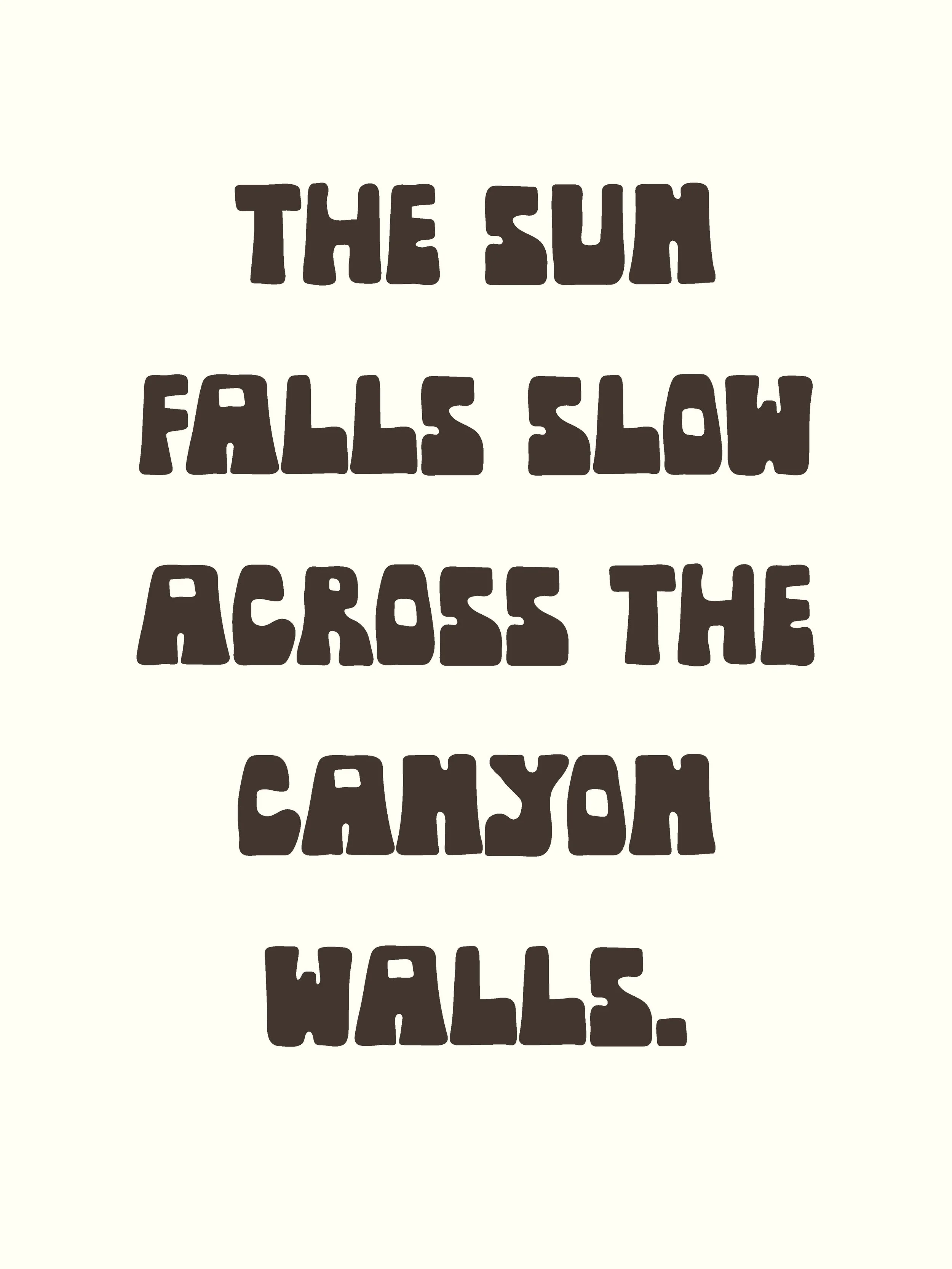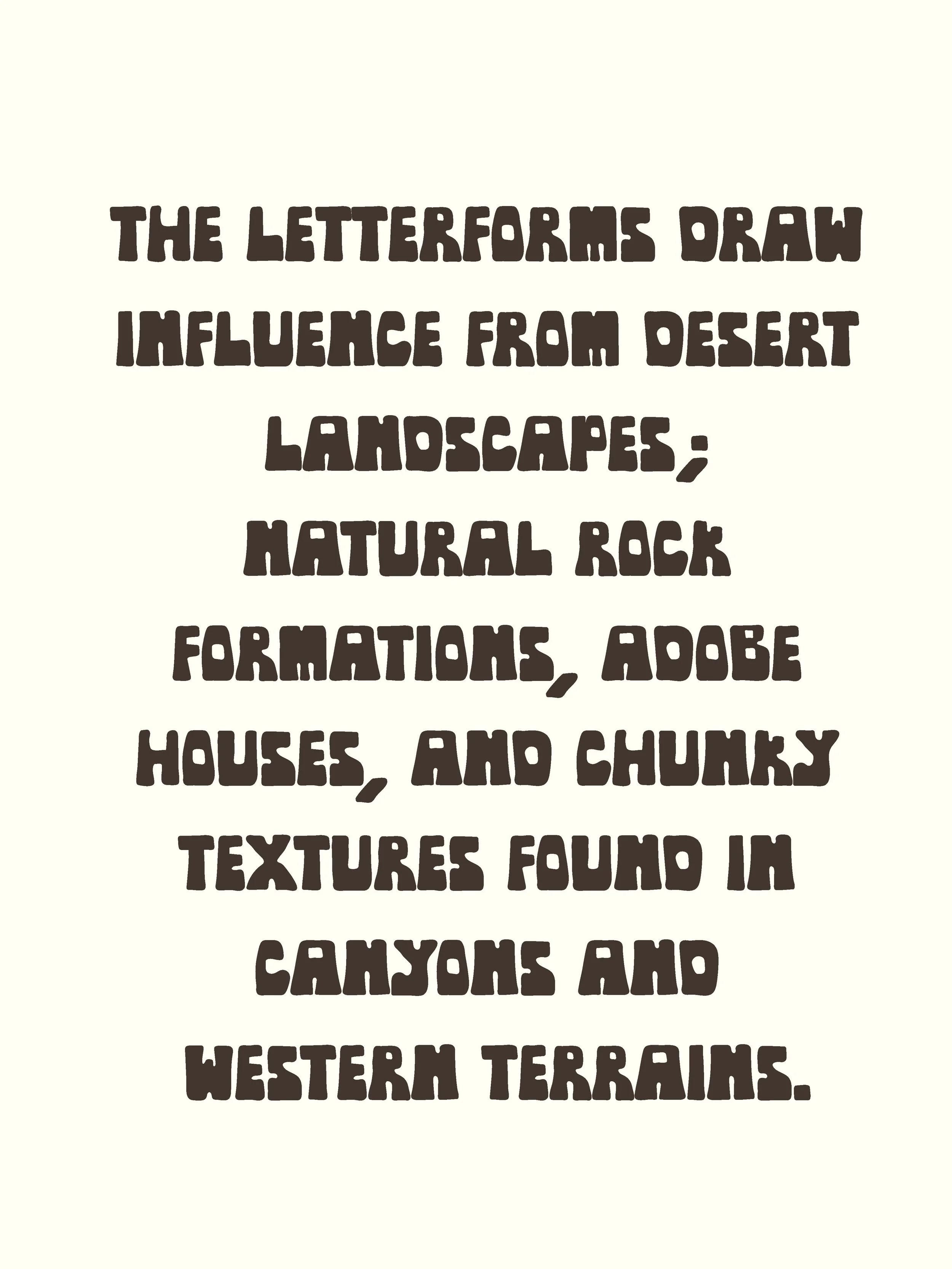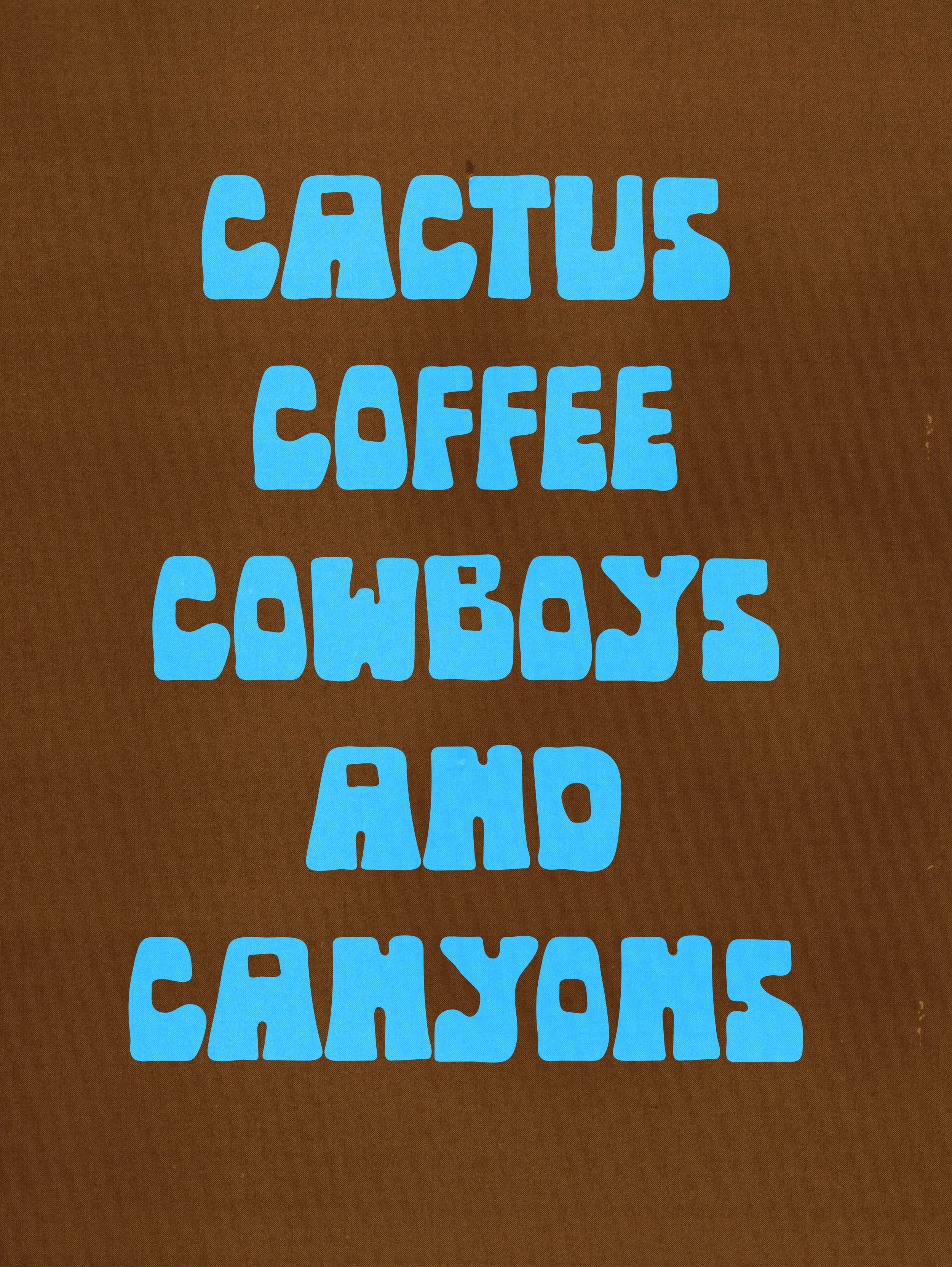
CANYON Hand Drawn is an all-caps display font with weight and presence, inspired by the tactile feel of clay on a potter’s table. Its letterforms are shaped by desert landscapes — from natural rock formations and adobe homes to the chunky textures of canyons and sun-baked western terrain.
Originally crafted for a potter’s custom logo, CANYON expands into a full alphabet. Thick, grounded shapes and a subtle 70s retro vibe make it perfect for projects that need an earthy, bold, and approachable western tone — ideal for designs with a handcrafted, Santa Fe, or roadside aesthetic.
Perfect for:
Bold ’70s-inspired titles, film credits, and posters
Western-themed branding, signage, and flyers
Editorial spreads, book covers, and travel zines
Packaging for handmade, rustic, or clay-based goods
Designs evoking canyons, valleys, and rugged landscapes
CANYON brings a grounded, handmade quality with just the right touch of western character — earthy, bold, and timeless.